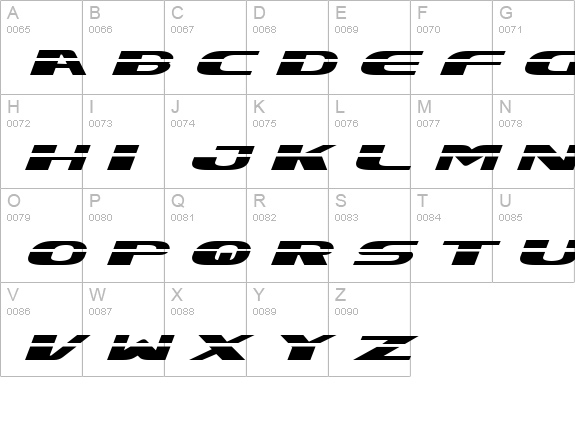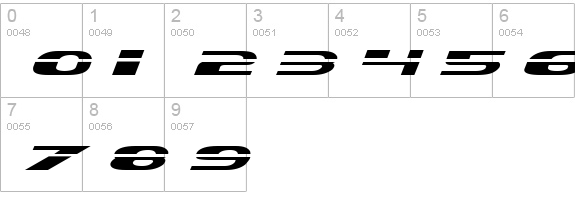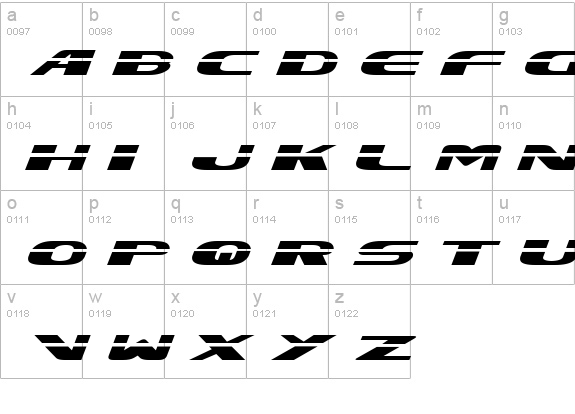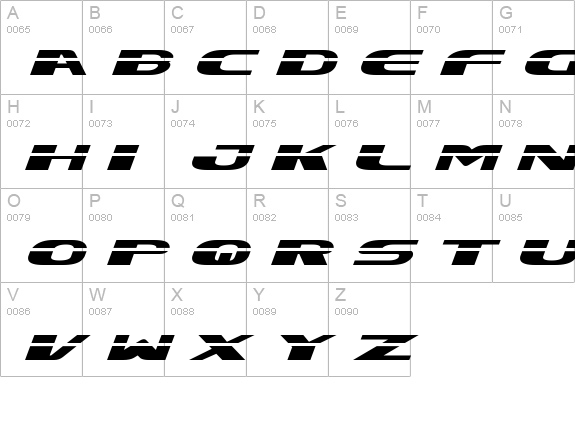
Excelerate Font Details
Excelerate font is a modern and sleek typeface that exudes elegance and sophistication. Its clean lines and sharp edges make it the perfect choice for a wide range of design projects, from branding to editorial layouts. The font features a unique combination of geometric shapes and smooth curves, creating a contemporary and stylish look. What sets Excelerate font apart is not only its aesthetic appeal but also its versatility. Whether you're designing a logo, a website, or a poster, this font will add a touch of professionalism and class to your work. Its readability and legibility make it suitable for both headings and body text, ensuring that your message gets across loud and clear. And the best part? Excelerate font is completely free to download at FontsMarket.com. So you can elevate your designs without breaking the bank. Don't miss out on this fantastic opportunity to enhance your creative projects with a high-quality, modern font that is sure to impress. Download Excelerate font today and take your designs to the next level.